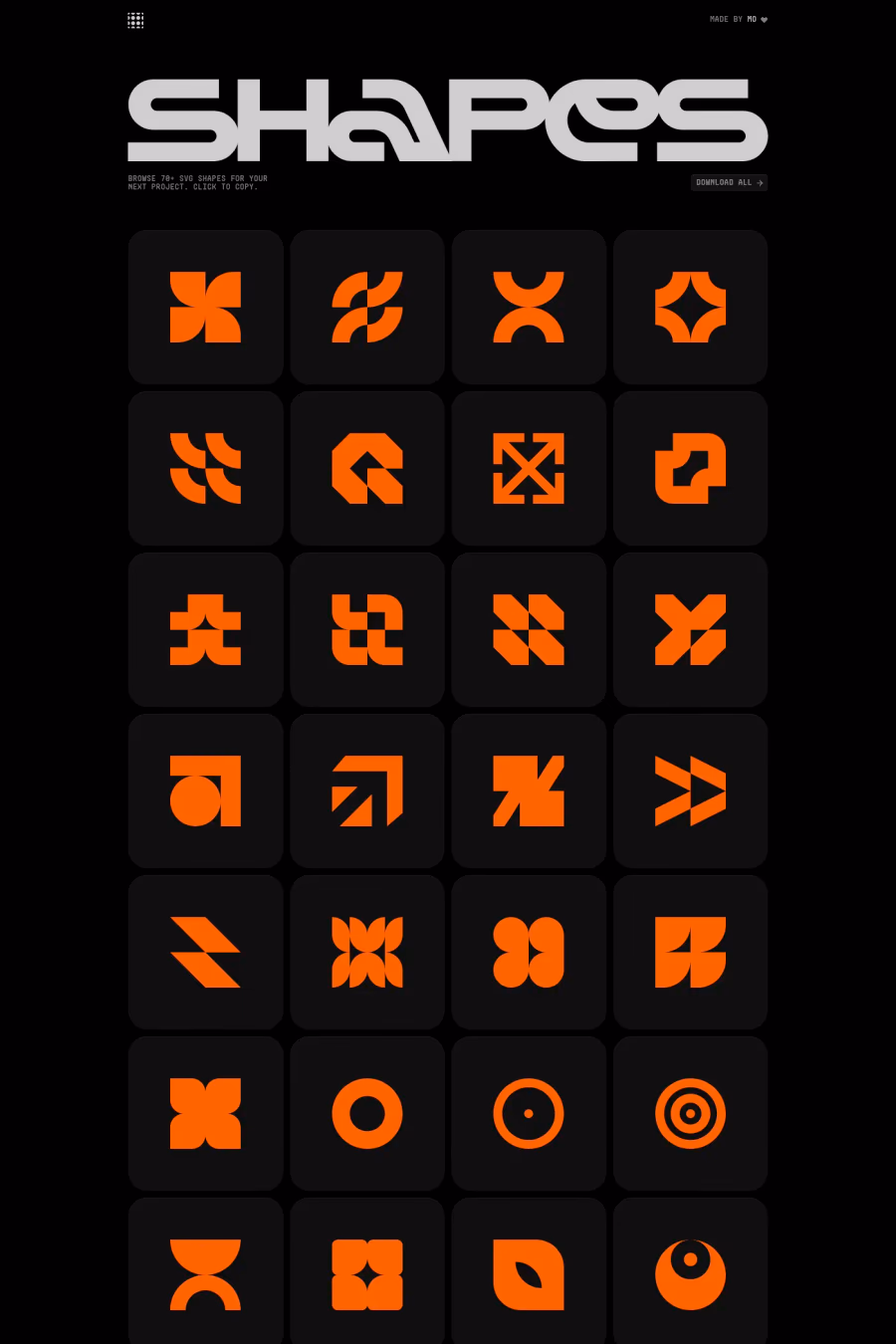
Mono-Spec is a monospaced family of sans-serif type. At least in default settings, all characters across the typeface share a common width. That fixed settin...